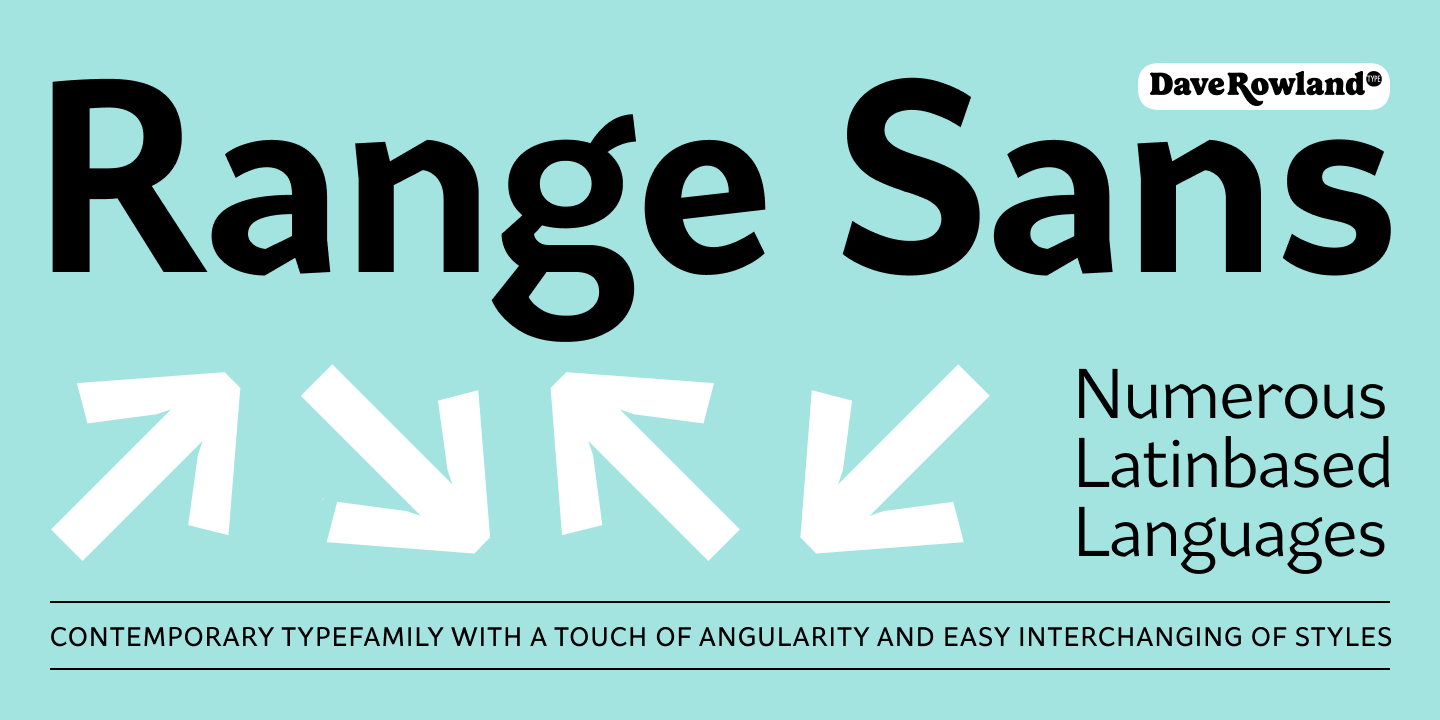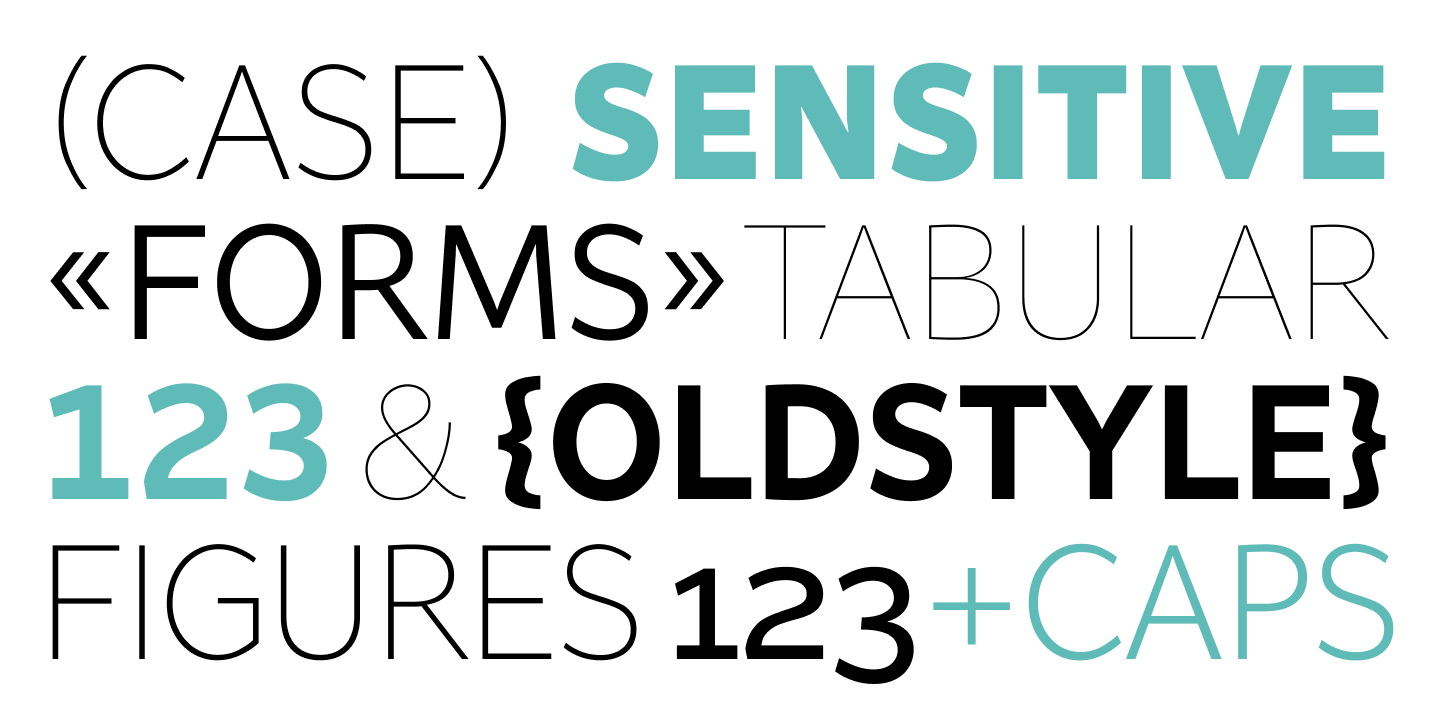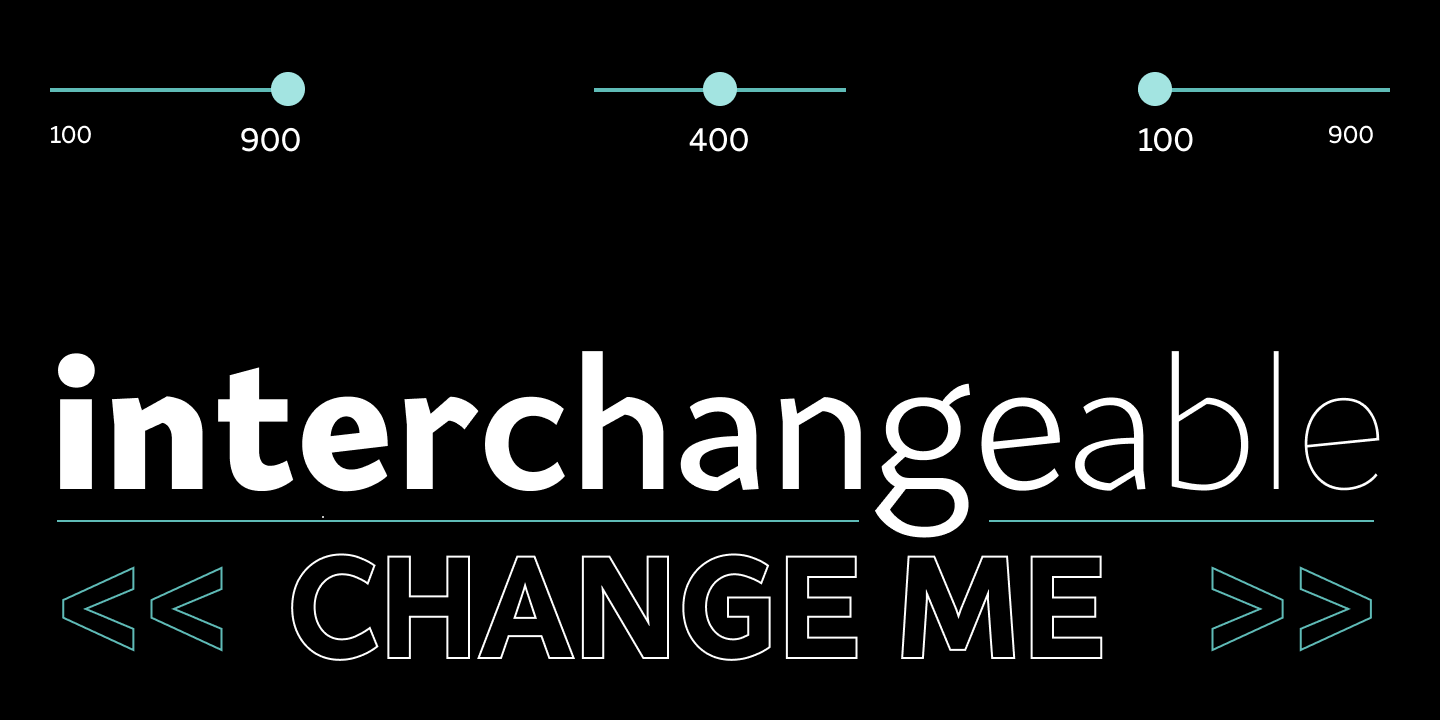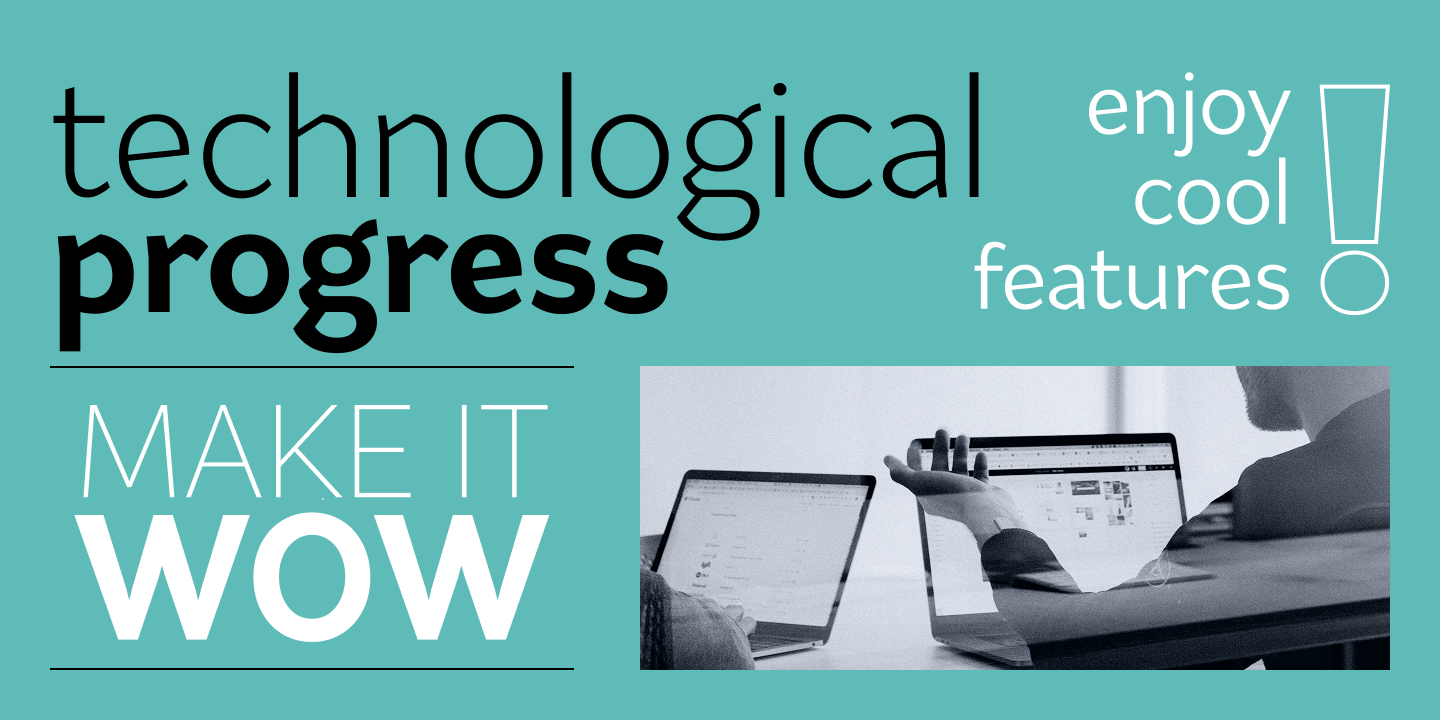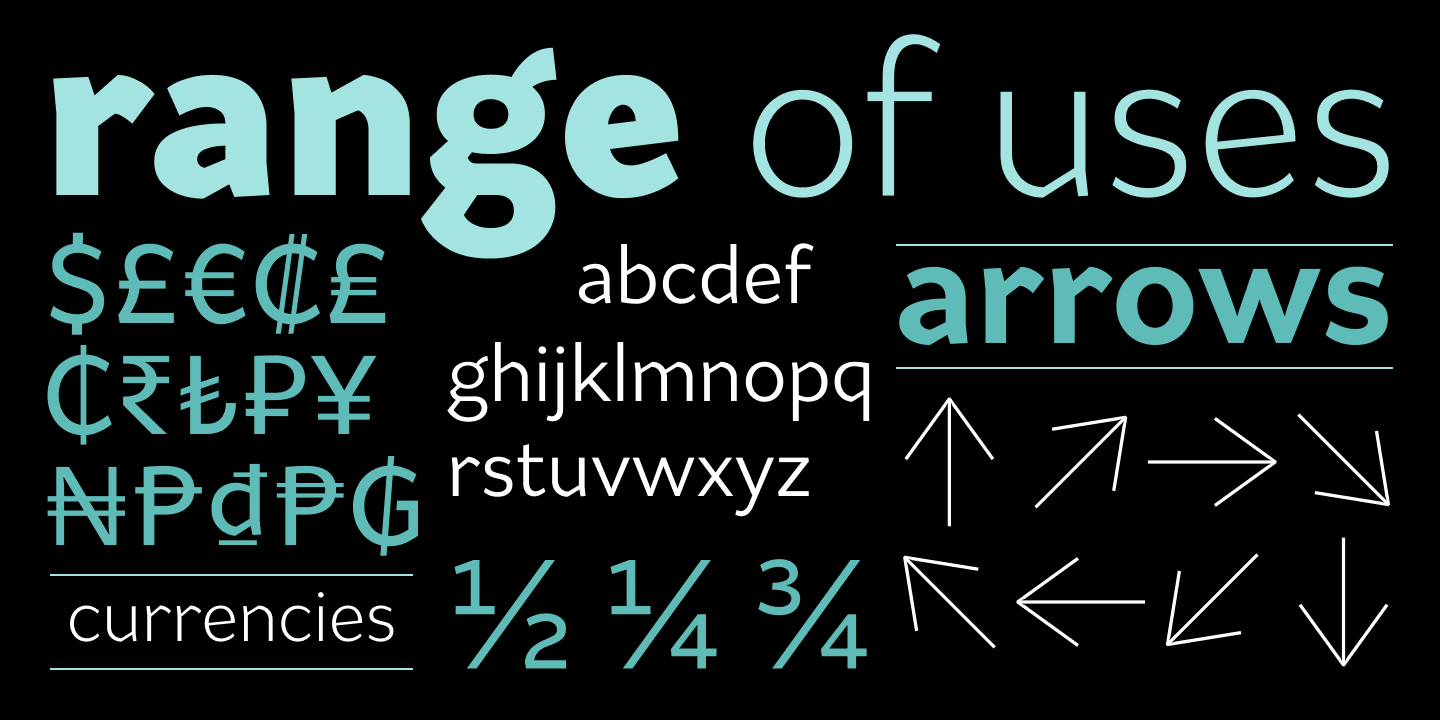
Range Sans
By Dave Rowland
Range Sans is a contemporary grotesque sans serif font family. Created for those detailed project briefs such as corporate identities, information design, and logos, where one wants something slightly idiosyncratic and intriguing. However, the openness and spacing work well in running text, too. Because it mirrors design details similar to those in Range Serif, both families make for a natural font pairing, thus expanding the typographic range available for conquering whatever your client needs.